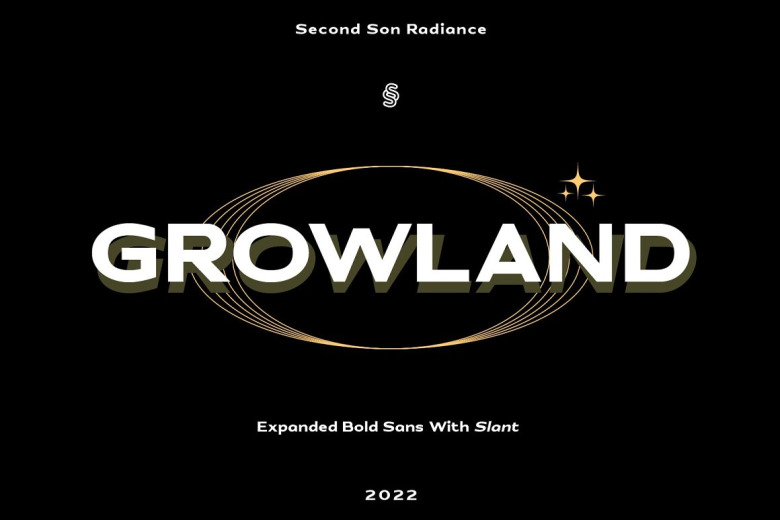
Growland Font
Growland is an Expanded Bold Sans Serif Font crafted for amazing big titles and headlines. suitable for any graphic design or typography mood references! “For whatever your cover book, headline news and etc.. are…” Regular dan Slant ini adalah karakter yang komplet, juga berbahasa ganda.
Growland Sans Serif Font